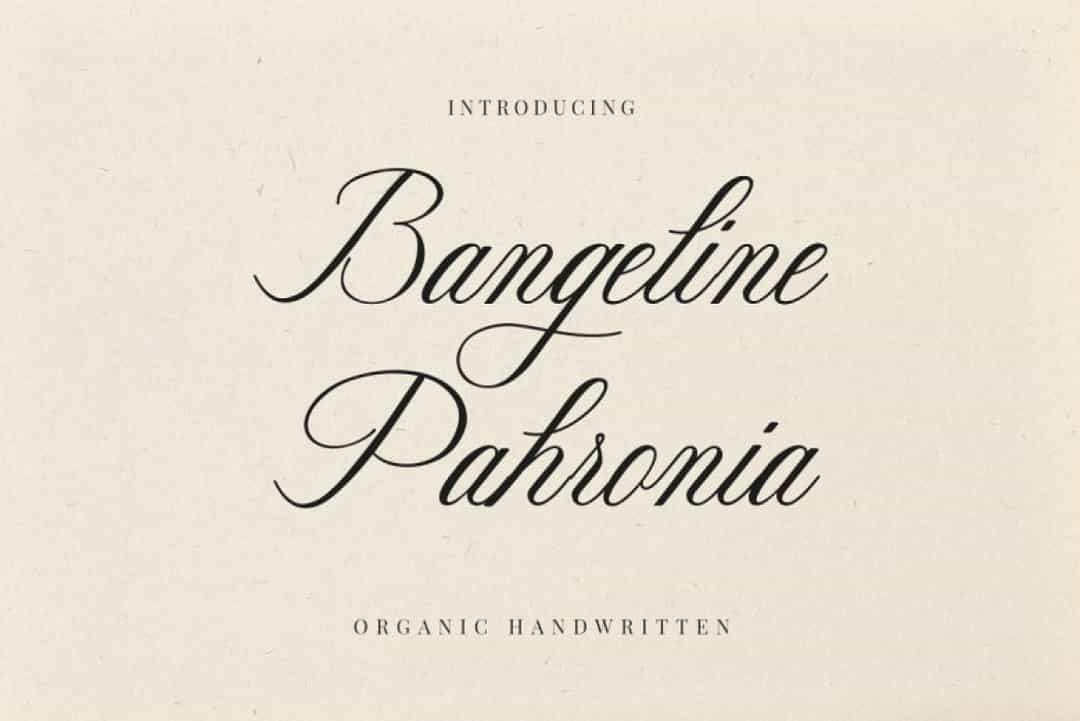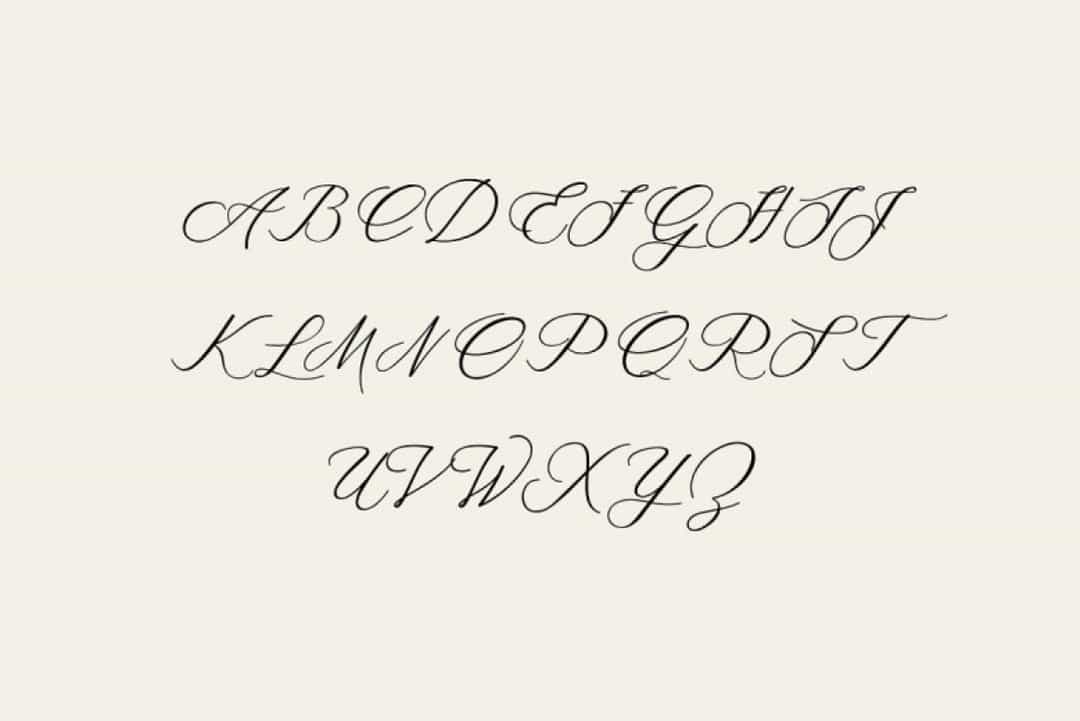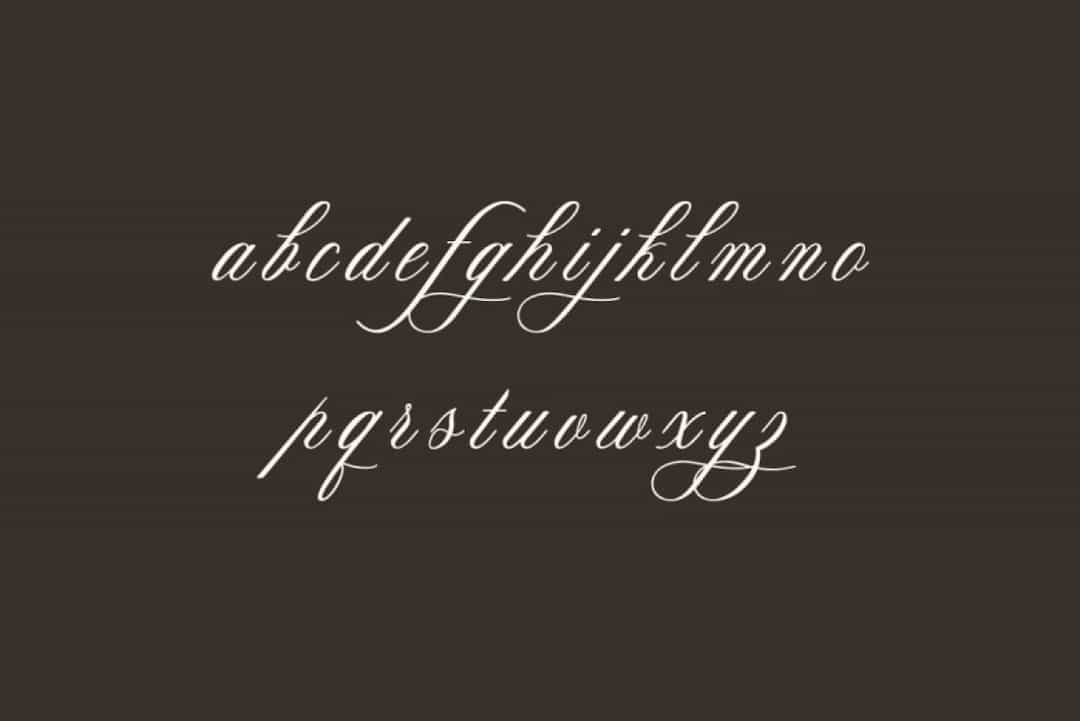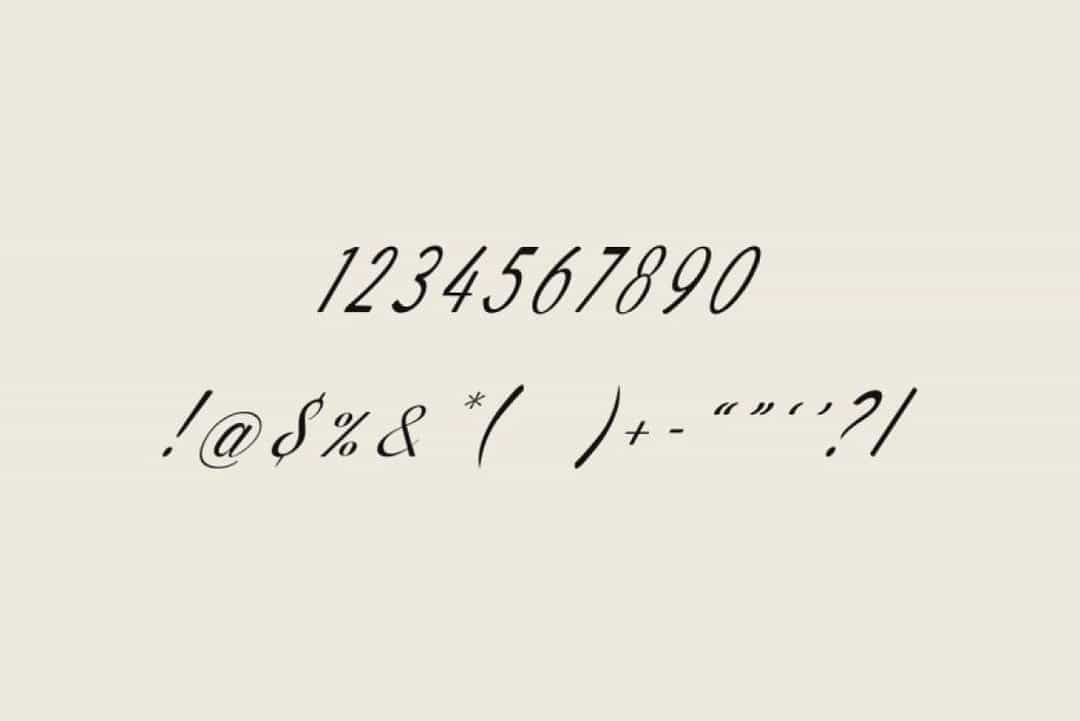
Bangeline Pahronia is an elegant and classy handwritten calligraphy font designed with natural script font. Perfect for many applications including logo design, signature creation, wedding stationery design, typography quotes on magazine covers or book covers, headers for websites and clothing packaging design headers design as well as branding initiatives this font offers many opportunities.